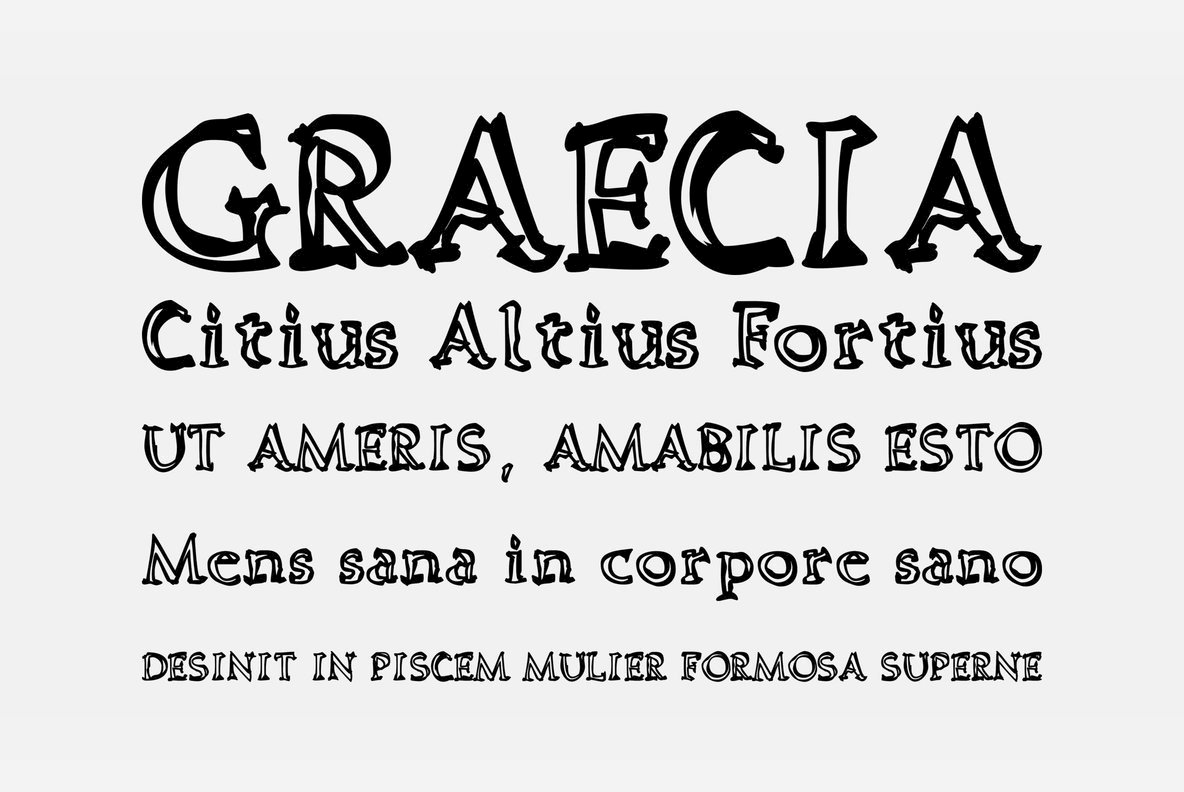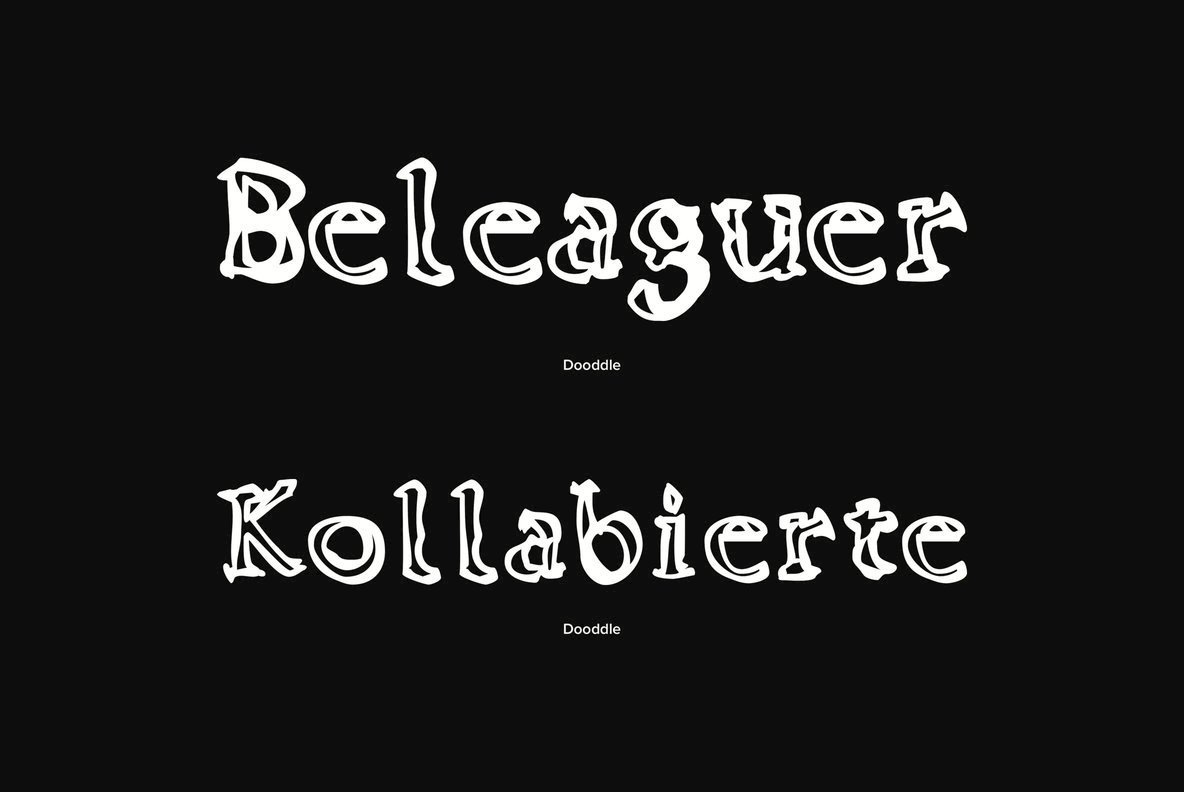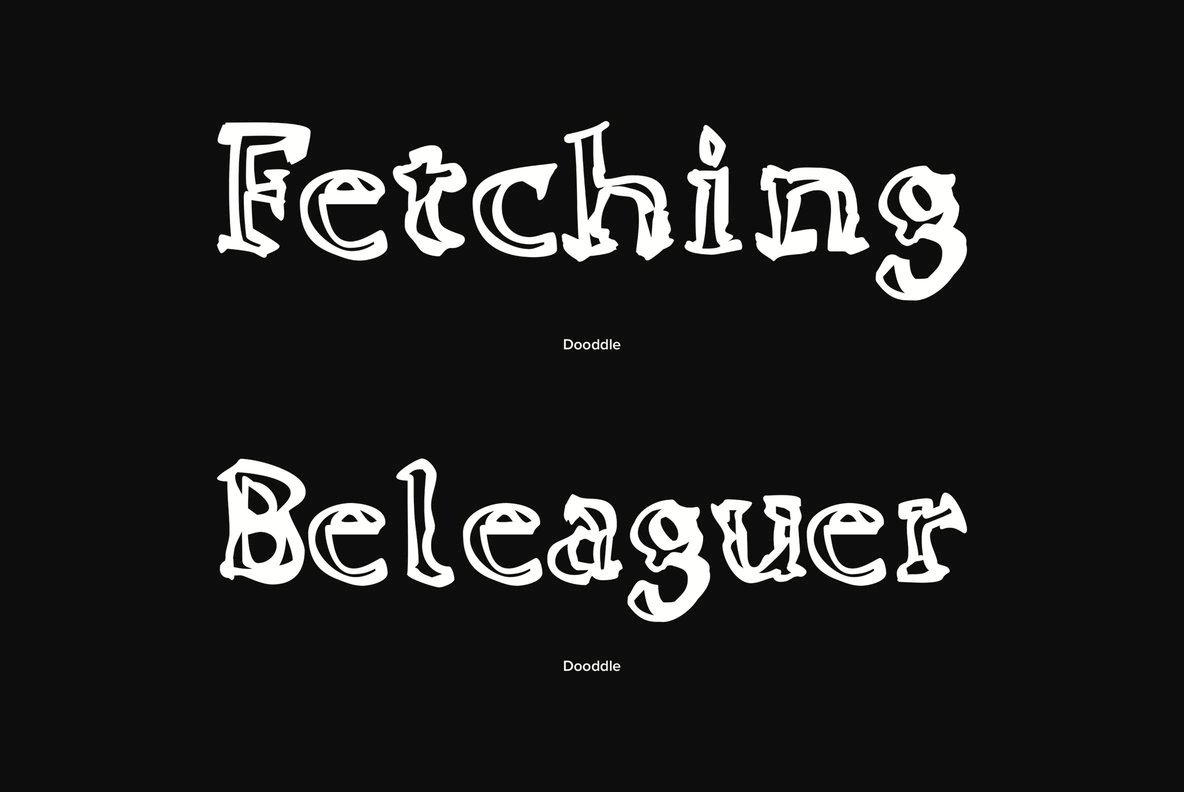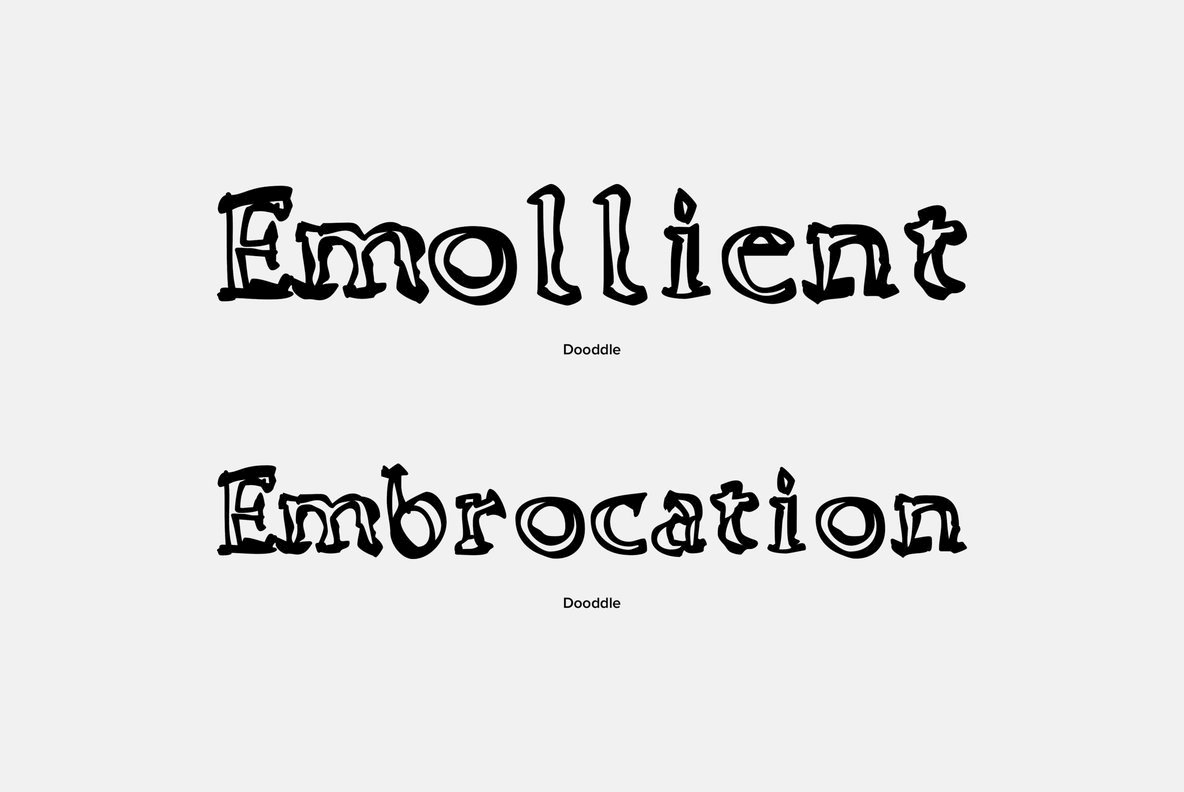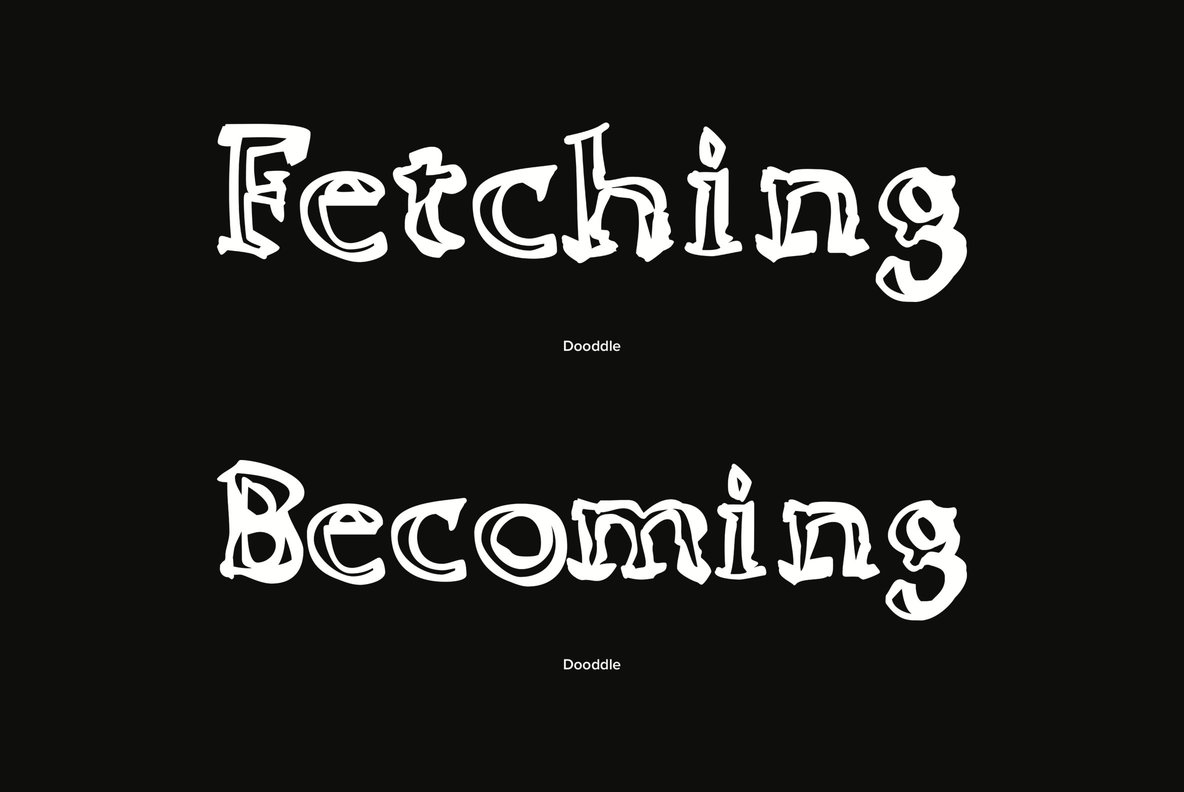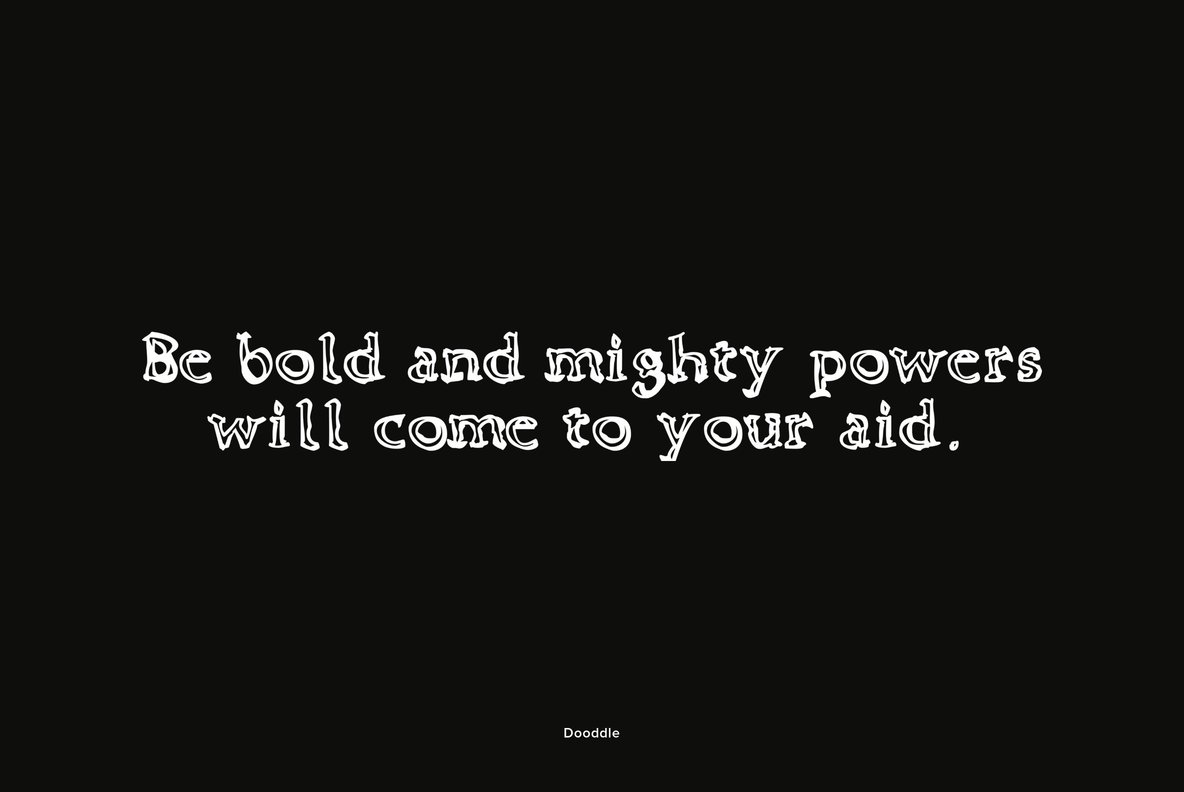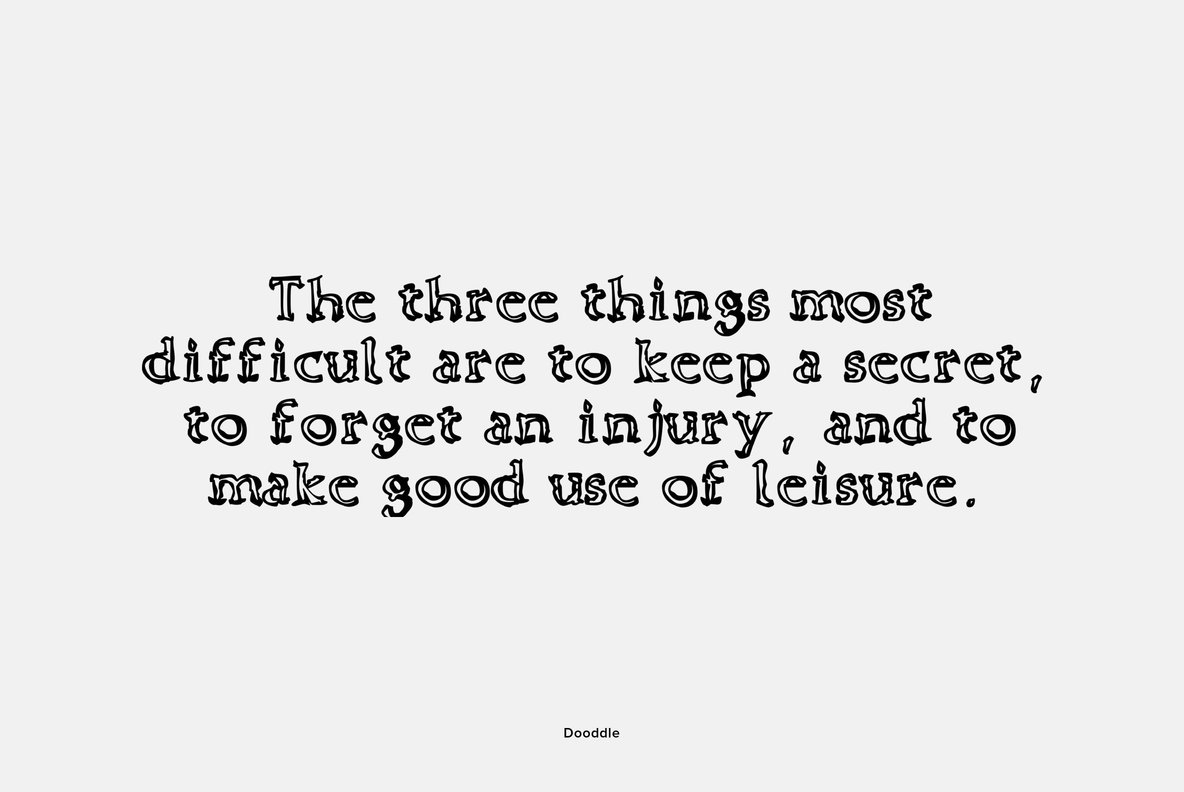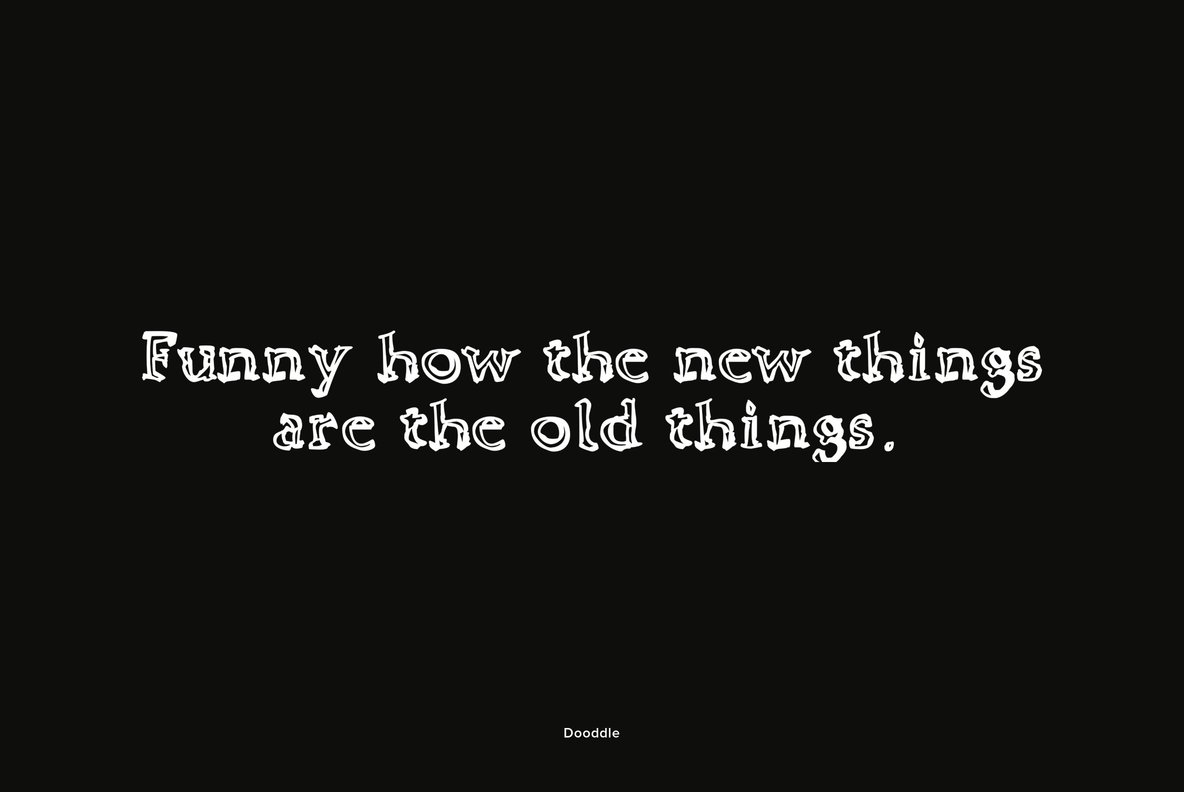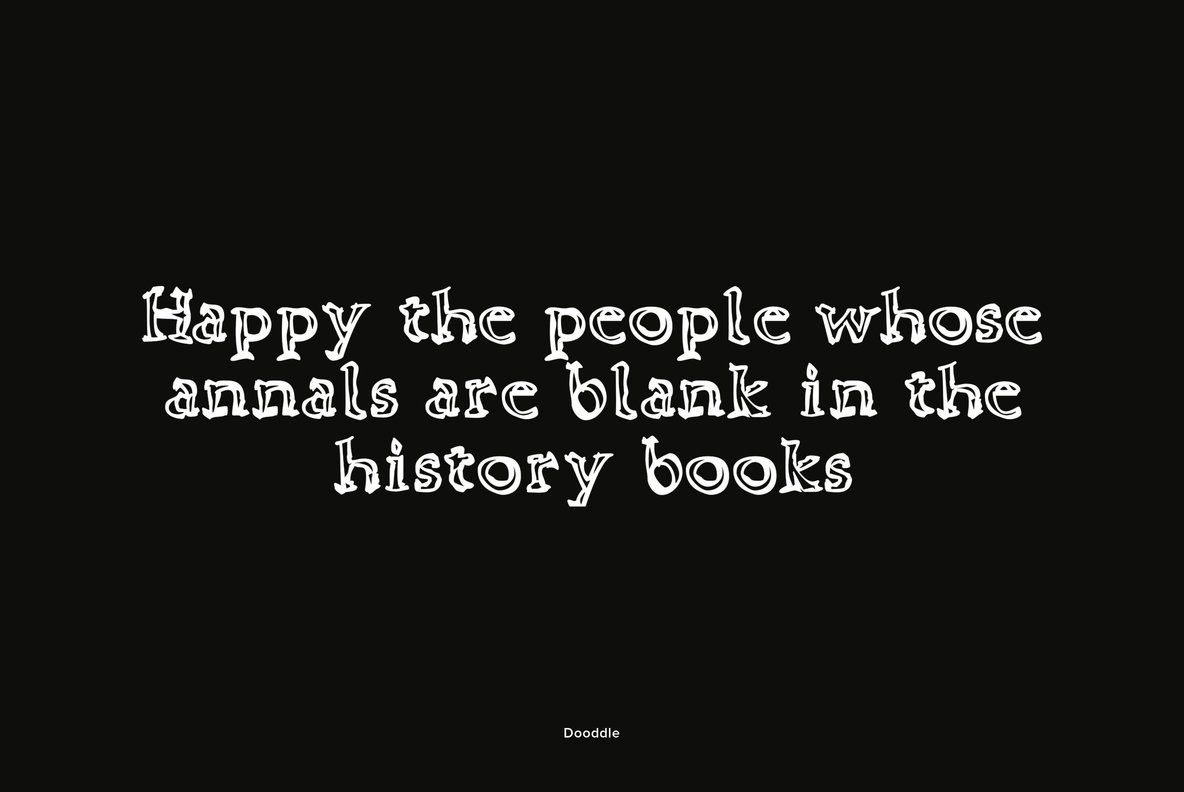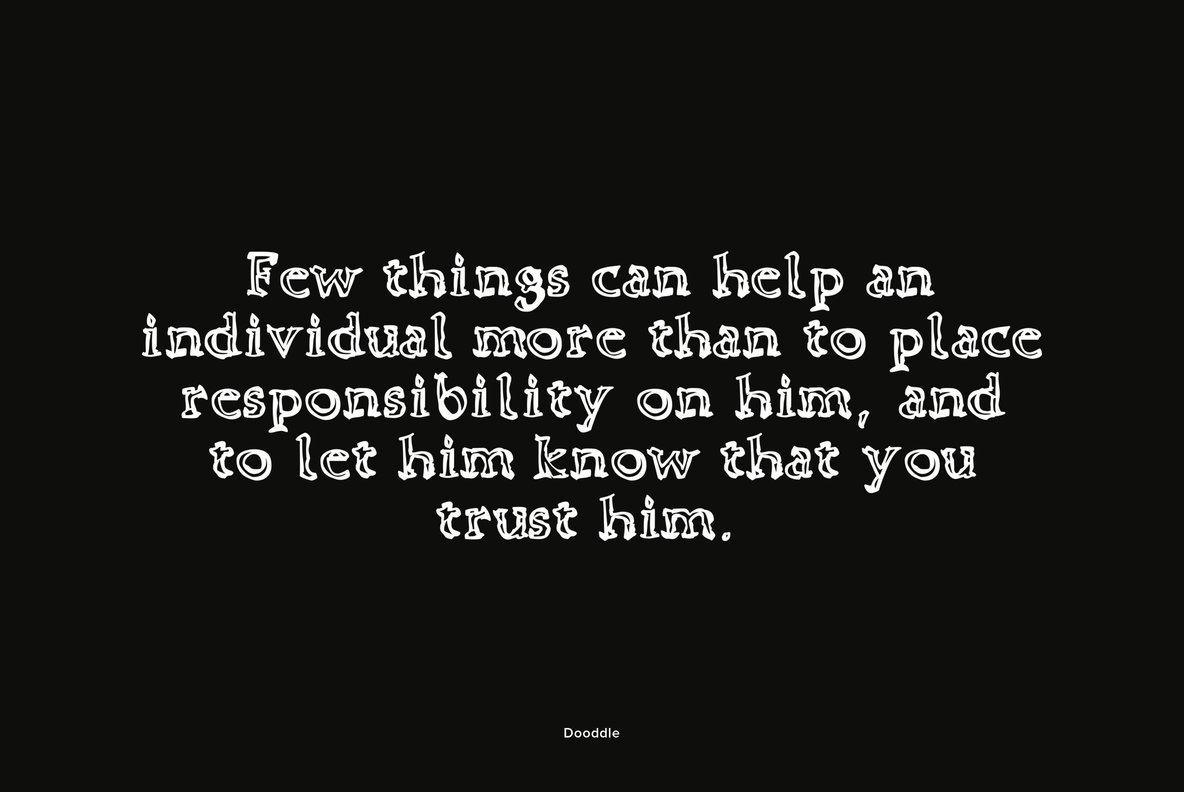
Doodle Font
Dooddle
Doodle offers a playful twist on traditional serif fonts, captivating those with a penchant for the unconventional. While its lines may appear casually sketched, this font retains the elegance and charm inherent to classic serif designs. Bridging the gap between whimsy and refinement, Doodle proves ideal for a variety of creative endeavors.Doodle: Whimsical Yet Sophisticated Serif
Gerald Gallo is a professional graphic designer.While designing trademarks and logotypes, Gerald often designed unique lettering. It was a natural step to create entire alphabets from some of these designs. However, it was very difficult to have a font produced before the advent of the personal compute...